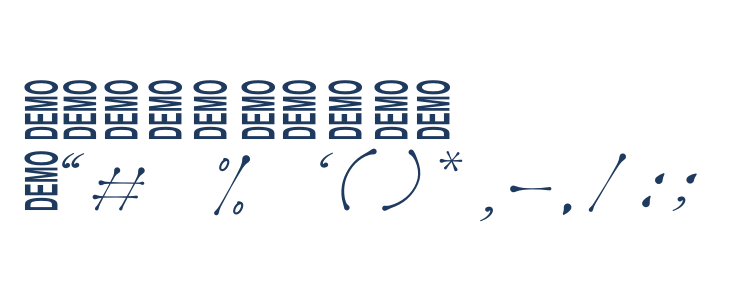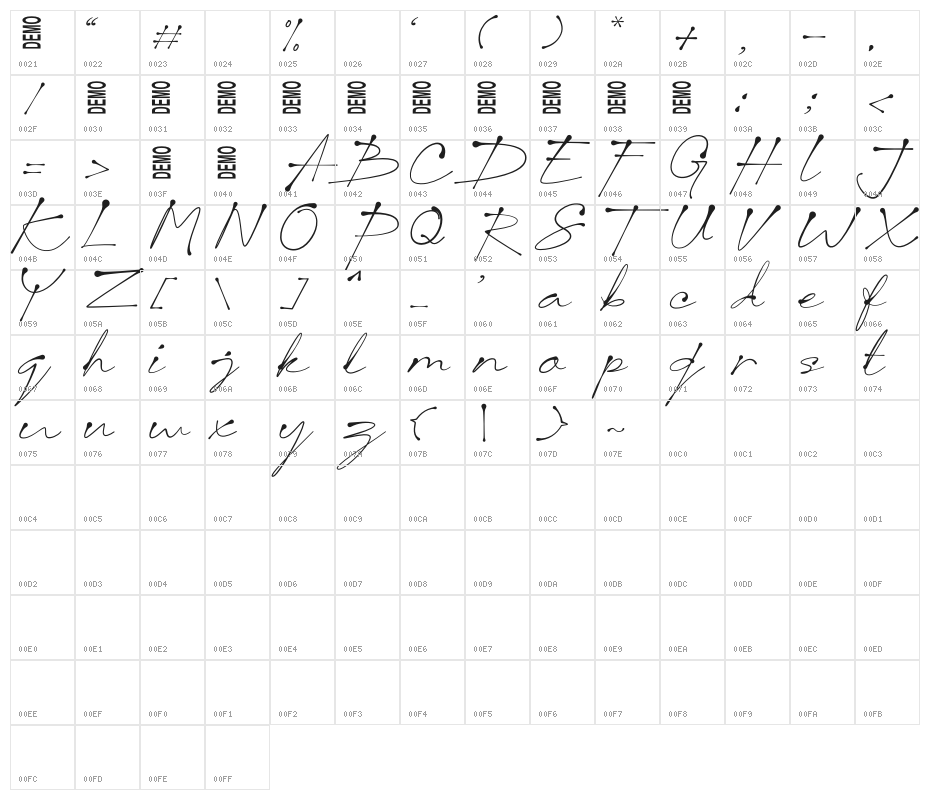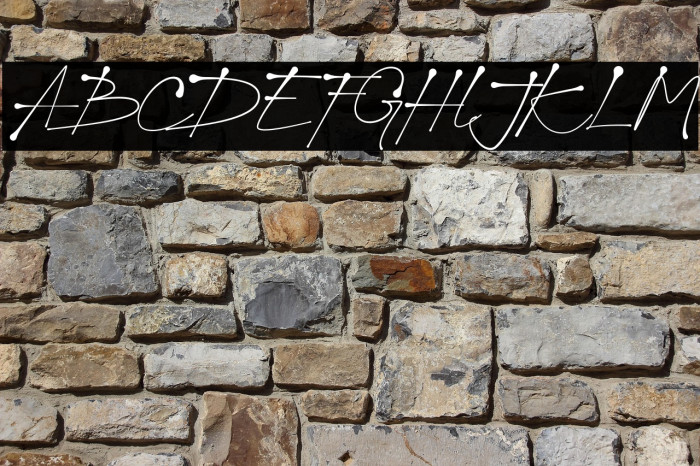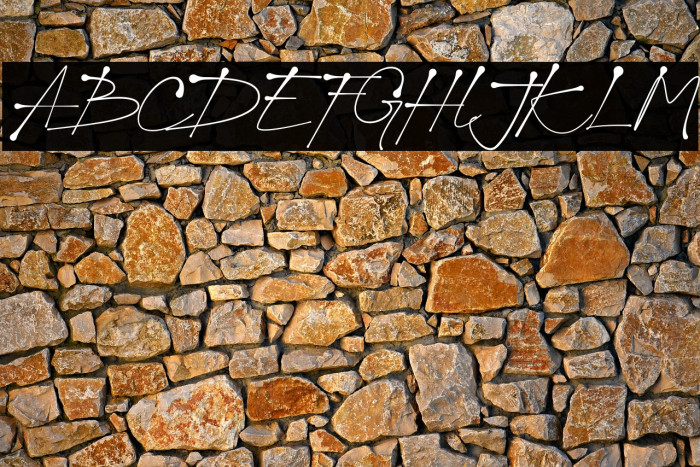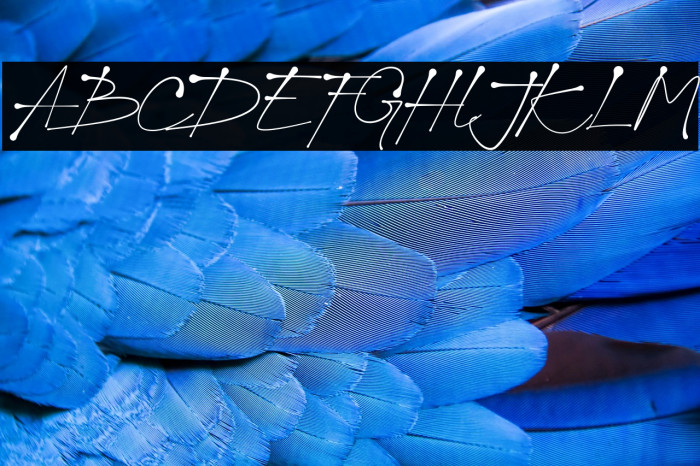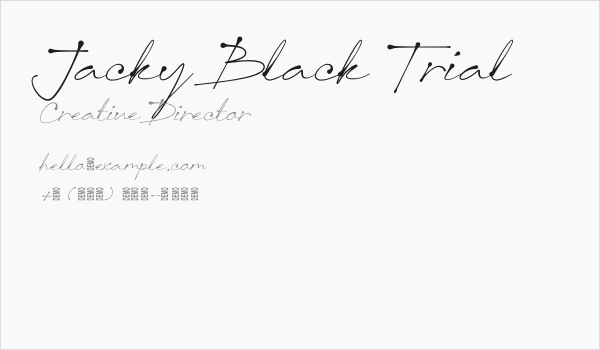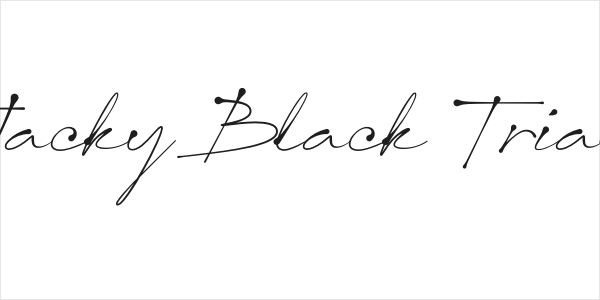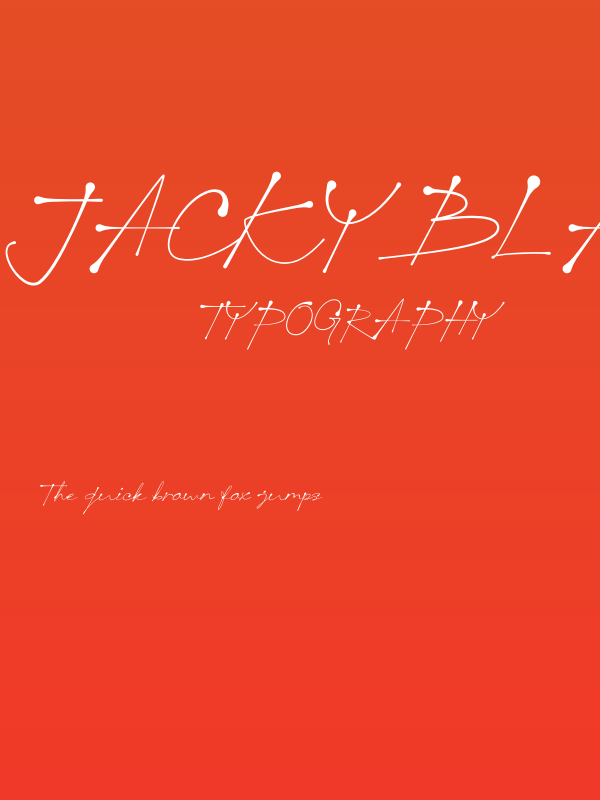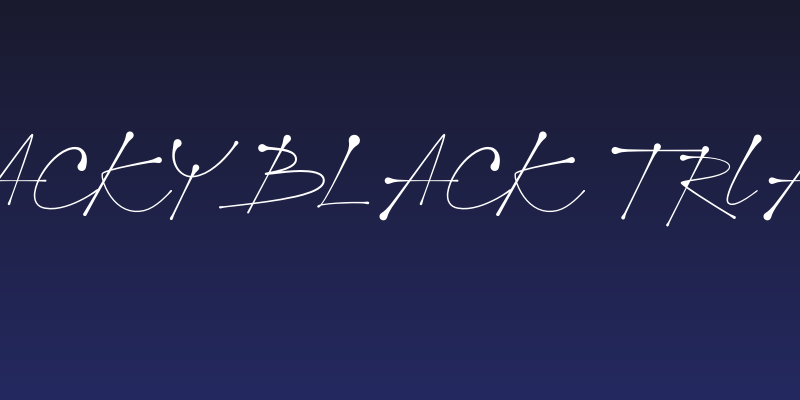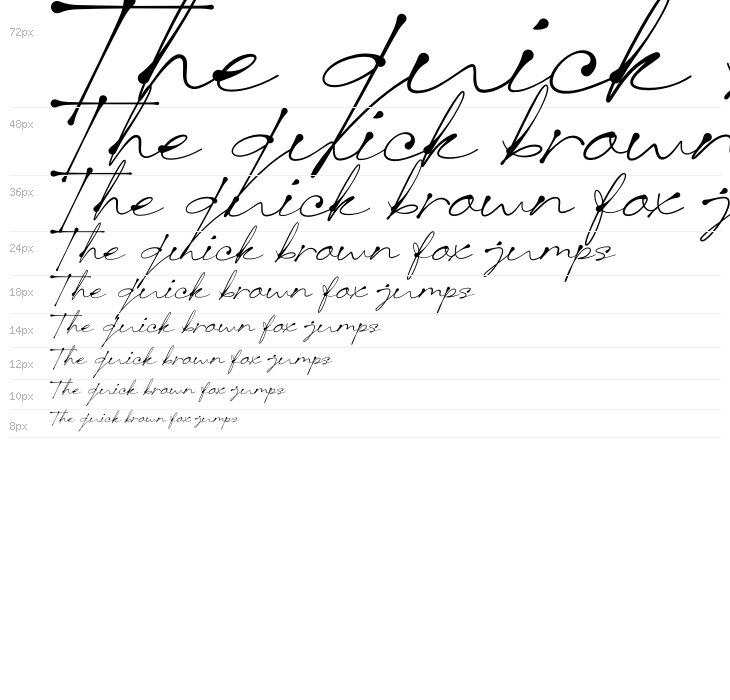
Jacky Black Trial Font
Jacky Black Trial Description
This font features a distinctive handwritten style with a modern twist. The uppercase letters are elegantly elongated with a slight slant, giving them a dynamic and fluid appearance. The lowercase letters maintain a consistent flow, enhancing the script-like quality. The strokes are thin with varying thickness, adding a touch of sophistication and elegance. The special characters and numbers follow the same stylistic cues, ensuring a cohesive look across all elements. This font is perfect for projects that require a personal, artistic touch, such as invitations, greeting cards, or branding materials.